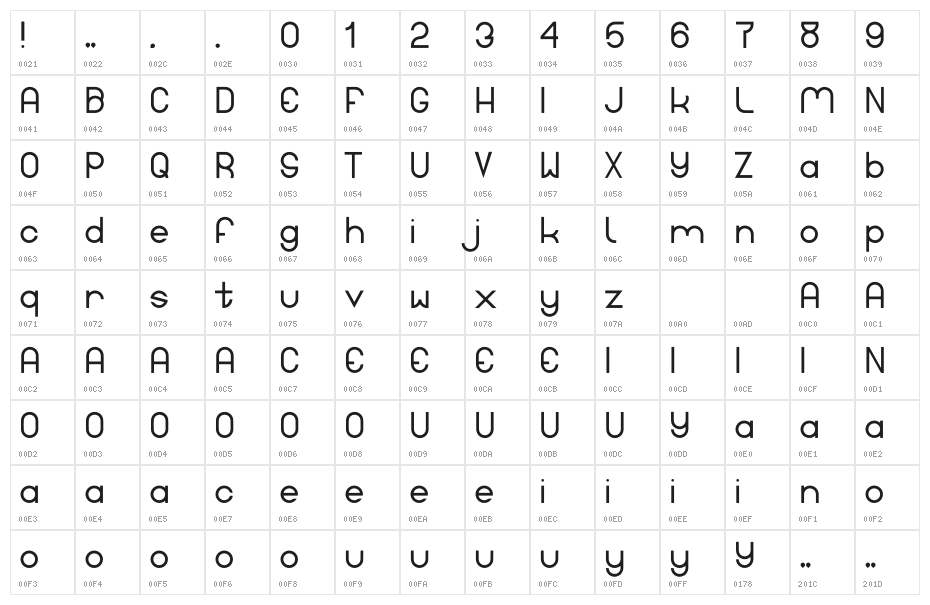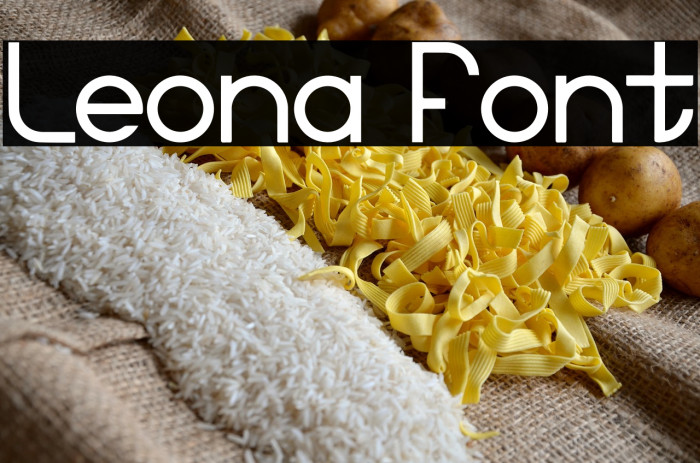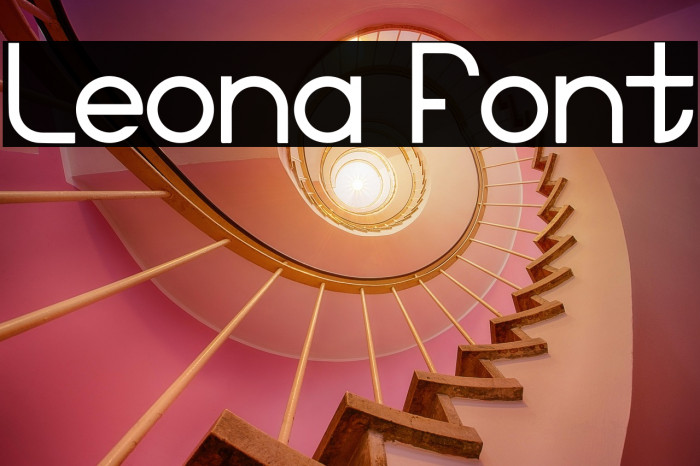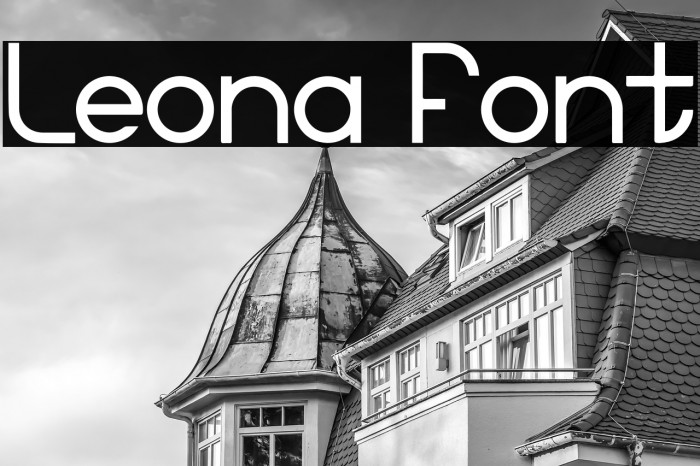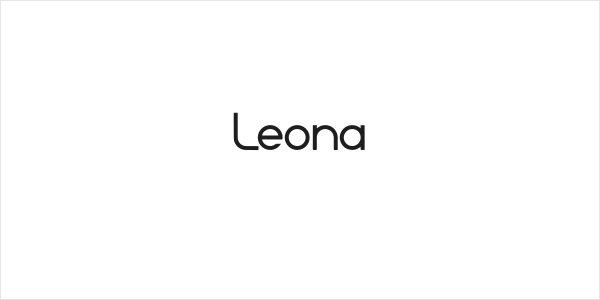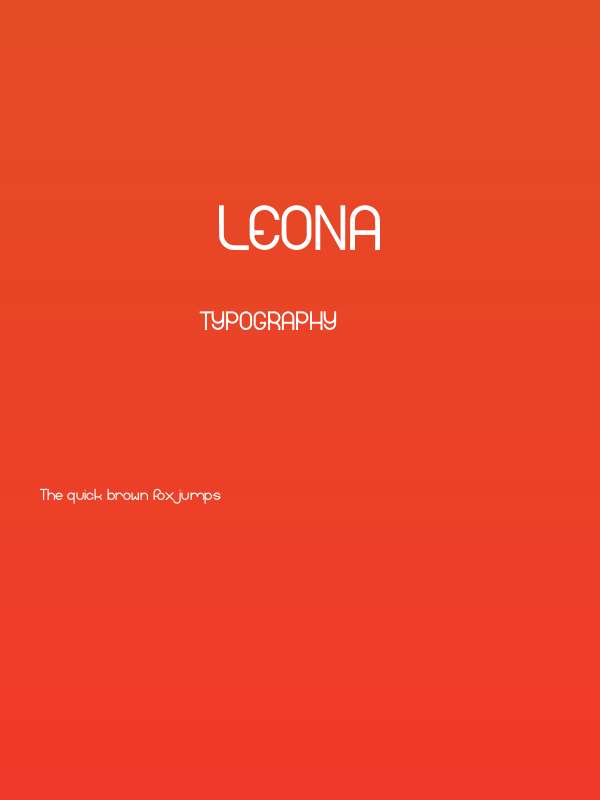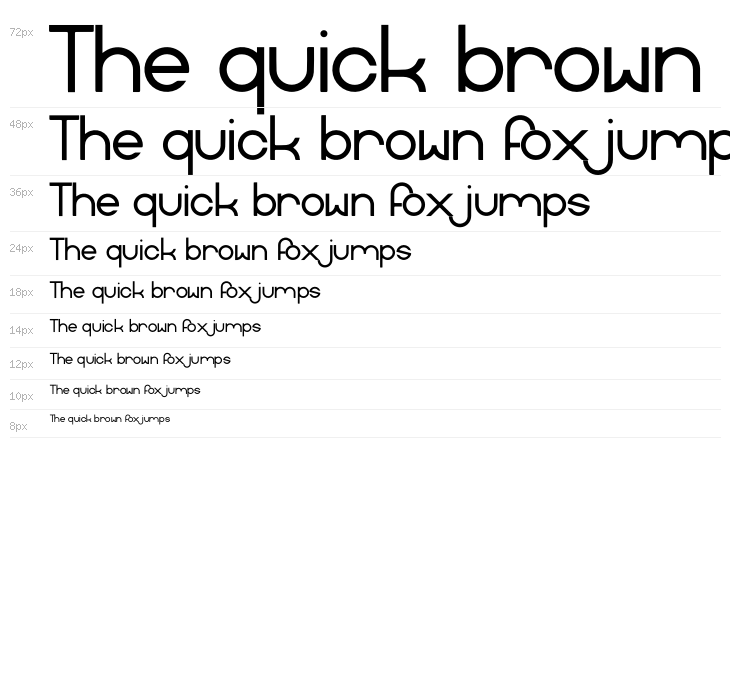
Leona Font
Leona Description
This font features a modern, geometric design with clean lines and a minimalist aesthetic. The uppercase letters are characterized by their rounded edges and consistent stroke width, creating a harmonious and balanced appearance. The lowercase letters maintain the same geometric style, with some unique touches such as the open loop in the 'g' and the distinctive tail of the 'y'. The numerals are bold and clear, ensuring readability. The special characters are designed to match the overall style, making this font versatile for various applications.
| Use Case | Headlines, Logos, Digital media |
| Proposed Projects | Ideal for branding, advertising, and digital media projects where a modern and clean look is desired. |